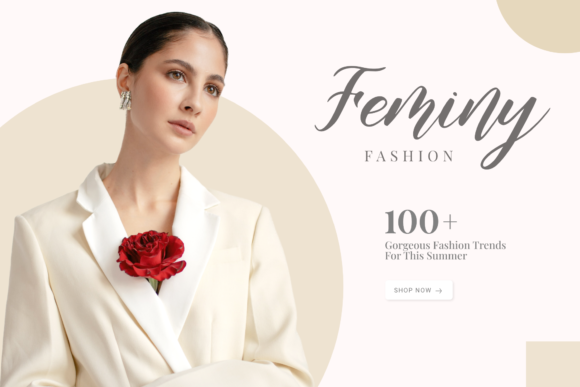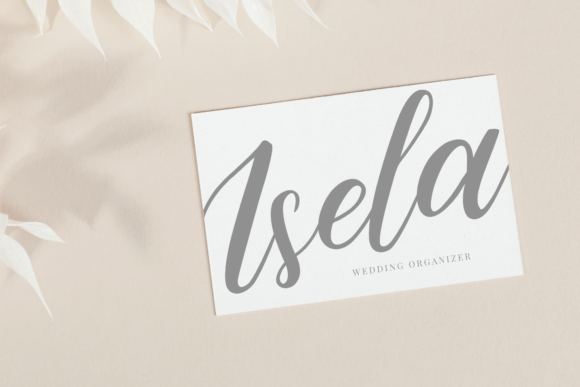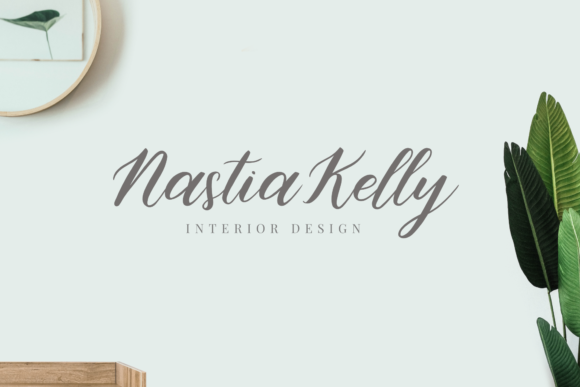
Introduction to Montella Font
Montella is a lovely script font featuring charming, playful characters that seem to dance along the baseline.
Add this font to your most creative ideas, and notice how it makes them stand out .
Key Features of Montella Font
Why Choose Montella Font?
Montella Font offers exceptional quality and versatility, making it a valuable addition to your design toolkit. Whether you’re creating for personal projects or commercial use, Montella Font delivers professional results.